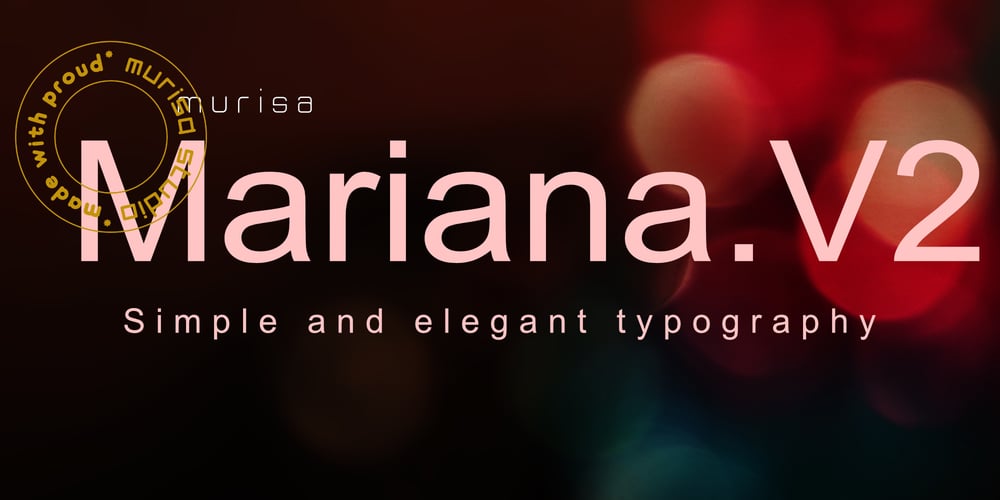
Murisa Mariana Font Family was designed by Lili Sadili and published by Murisa Studio. Murisa Mariana contains 4 styles and family package options. Mariana is a minimal and neat sans serif font. It can easily be matched to an incredibly large set of projects, so add it to your creative ideas and notice how it makes them stand out!